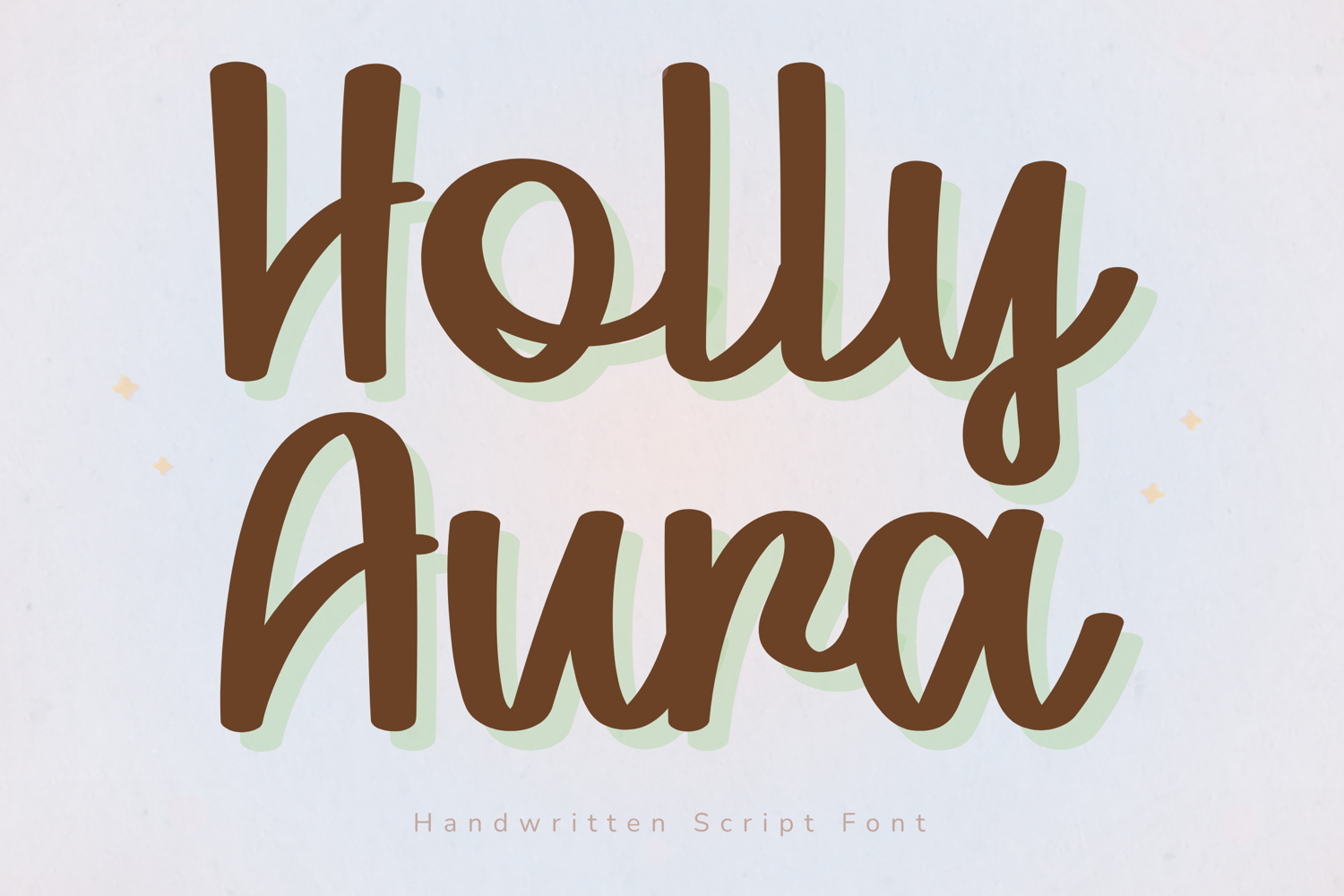
Holly Aura - Handwritten Script Font
Holly Aura is a cheerful and elegant handwritten script font with a soft, modern personality. Designed with rounded strokes, smooth curves, and a naturally flowing handwritten style, this font creates a warm and approachable aesthetic that feels both playful and sophisticated.
Its clean yet expressive letterforms make Holly Aura perfect for feminine branding, Cricut projects, planner covers, journal pages, stickers, social media graphics, and packaging. The font is highly readable while maintaining a unique handwritten charm that adds personality to every design.
Key Features:
Uppercase & lowercase letters
Smooth handwritten script style
Rounded and friendly strokes
Numbers, punctuation & symbols
Perfect For:
Feminine branding
Cricut & craft projects
Planner and journal designs
Stickers and packaging
Social media graphics
Logos & Branding
Best Use Cases:
Beauty packaging
Tote bags
Stickers
Shop branding
Planner dashboards
Design Style:
Holly Aura combines a cozy handwritten look with a polished style, making it versatile enough for both playful and professional creative projects.